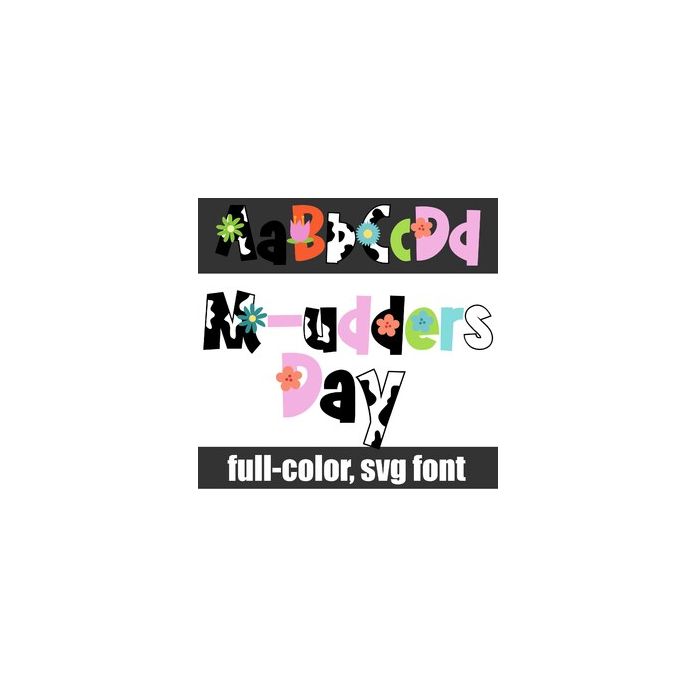
This full-color font features a cow print and florals, perfect for m-udders (mothers) day. There is an alt version you can access through your system's character map that contains additional colors of all the letters.